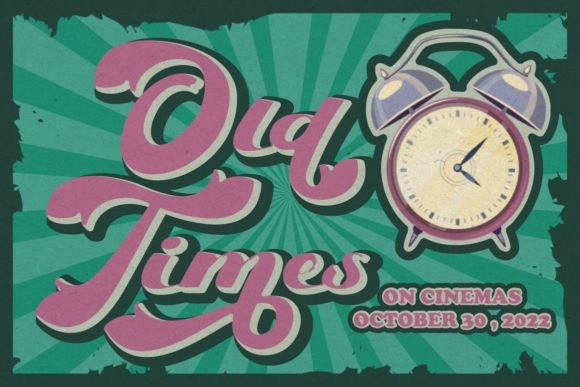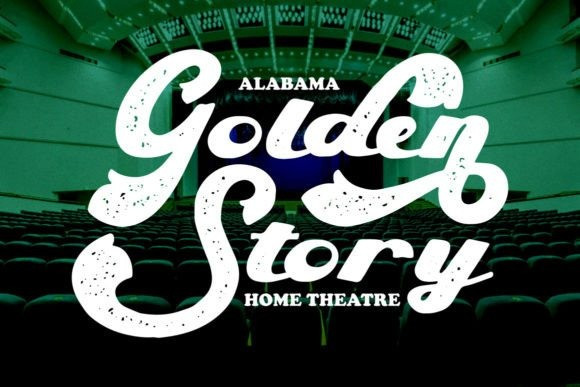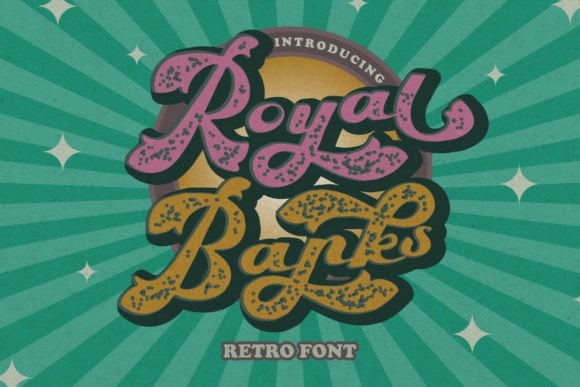
Royal Banks Font
Royal Banks feels playfully nostalgic and delivers an incredible vintage aesthetic. Use this script display font to add that special retro touch to any design idea you can think of! This font is PUA encoded which means you can access all the glyphs and ligatures with ease!